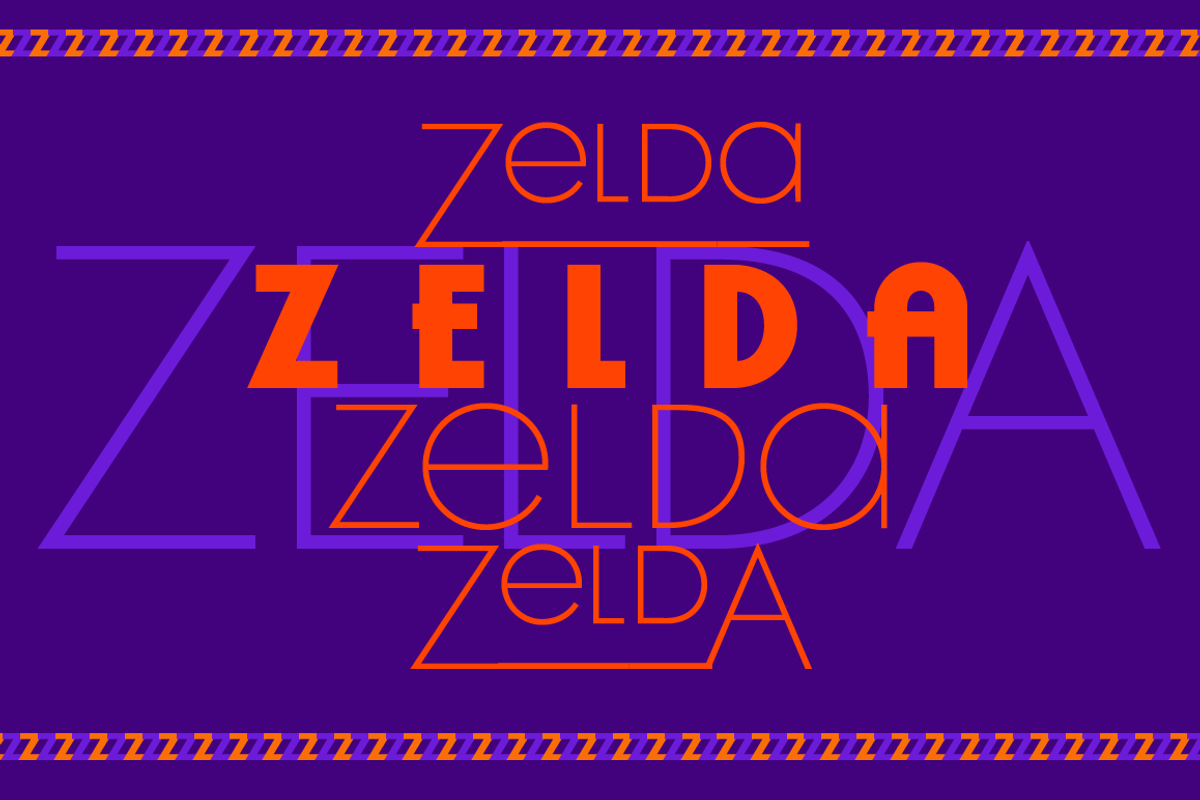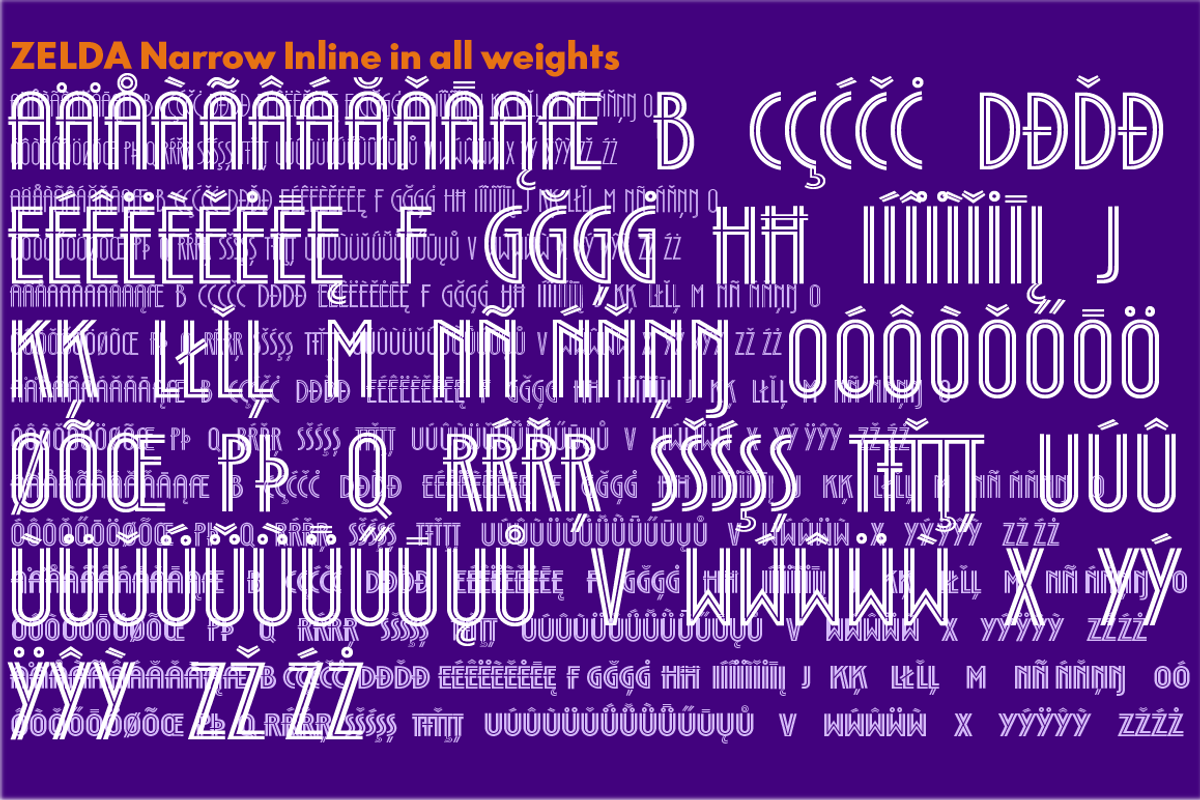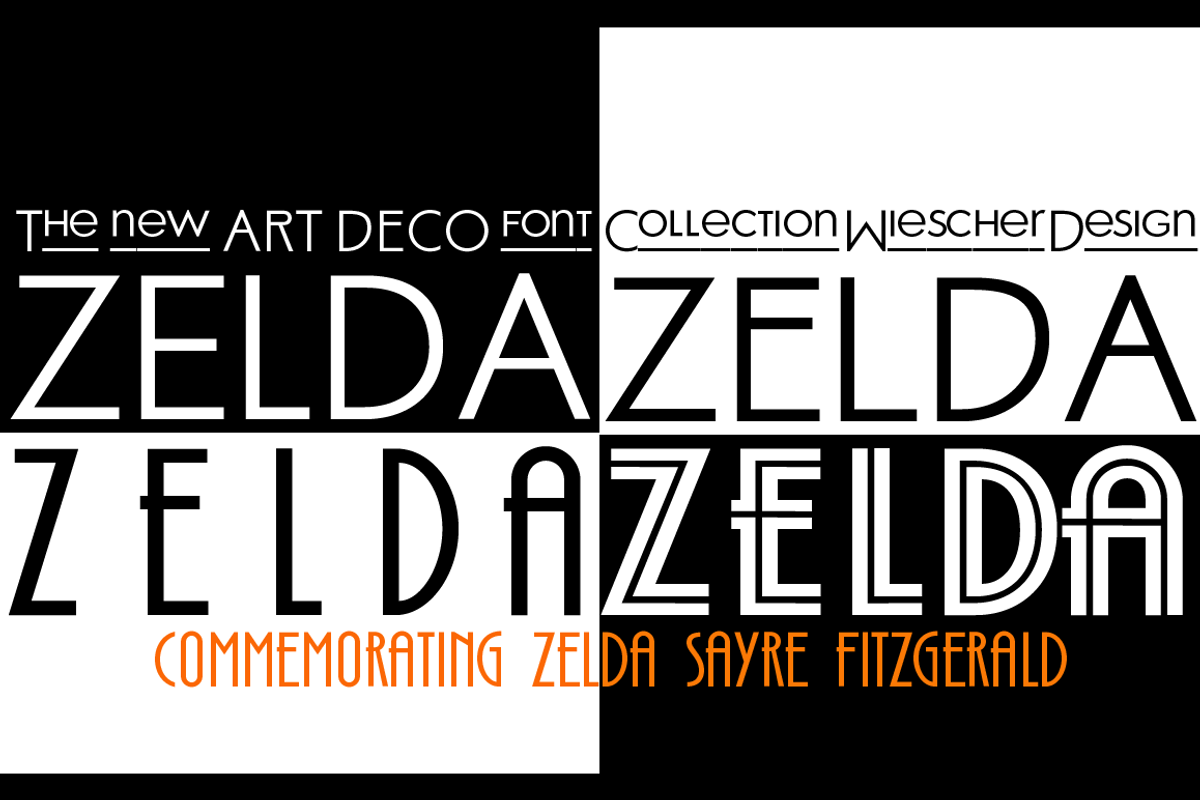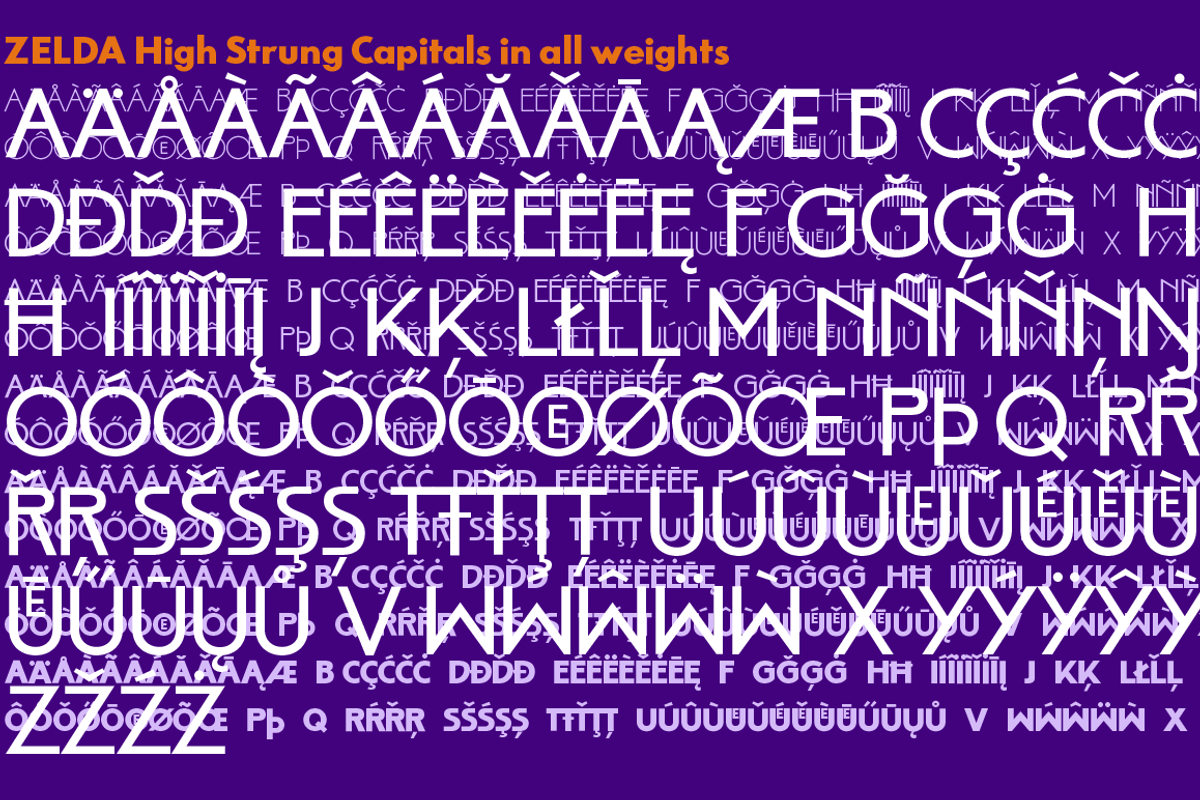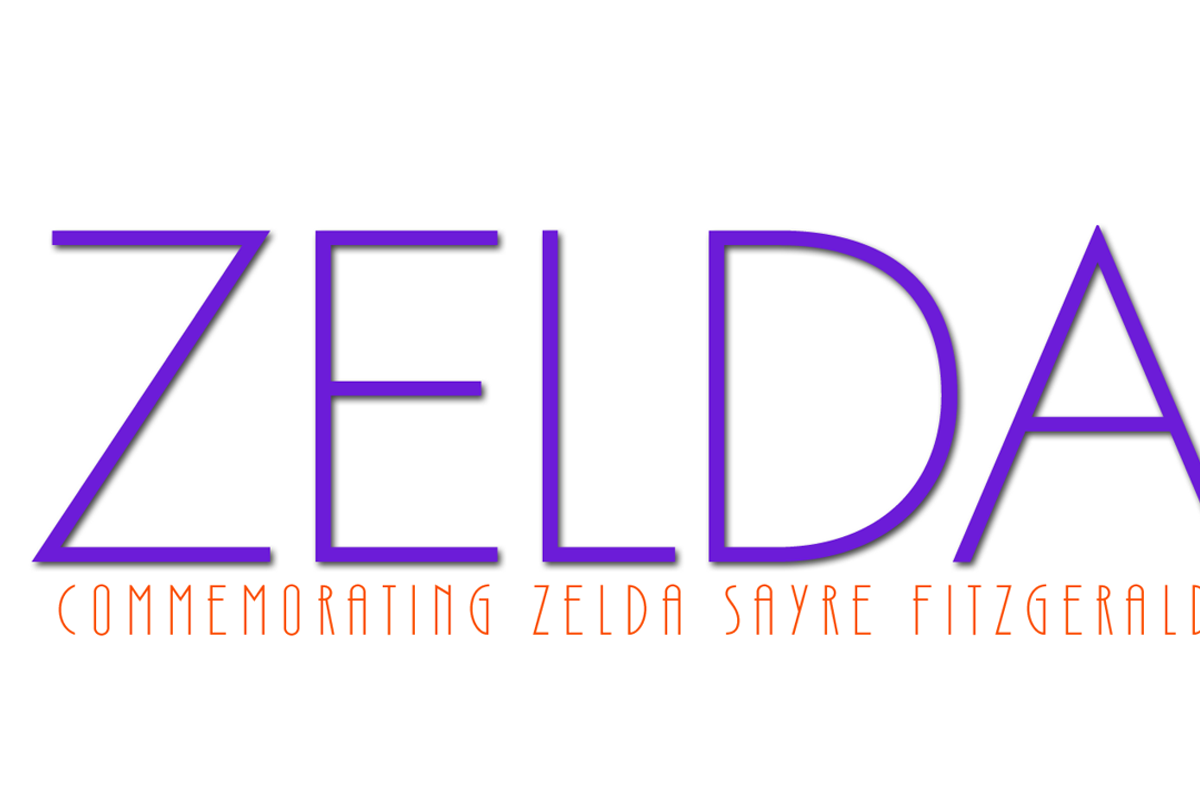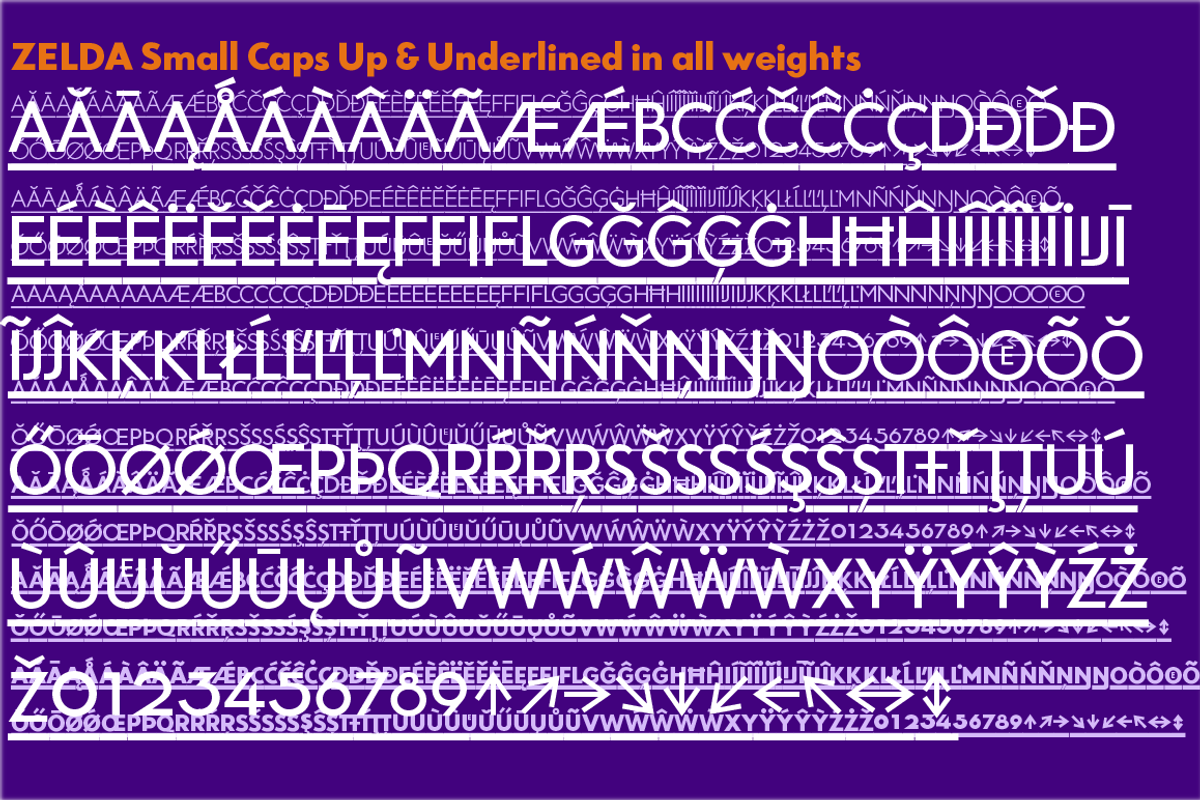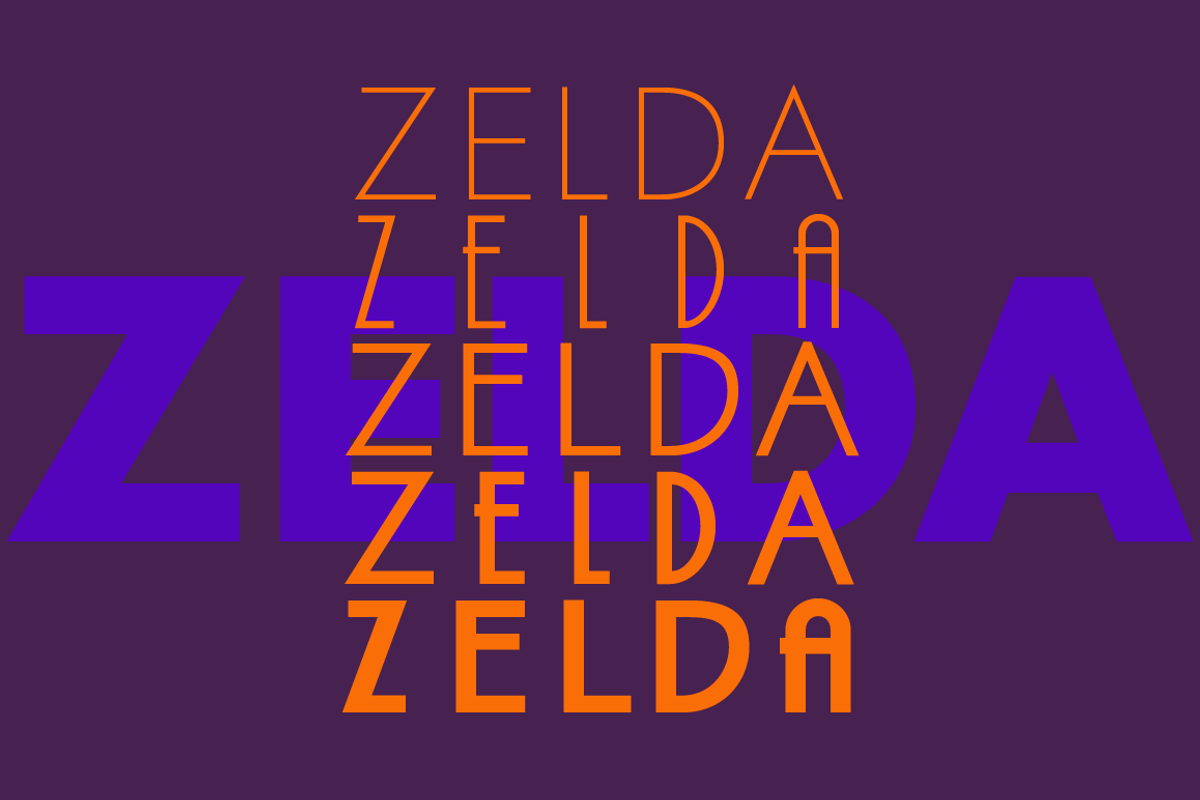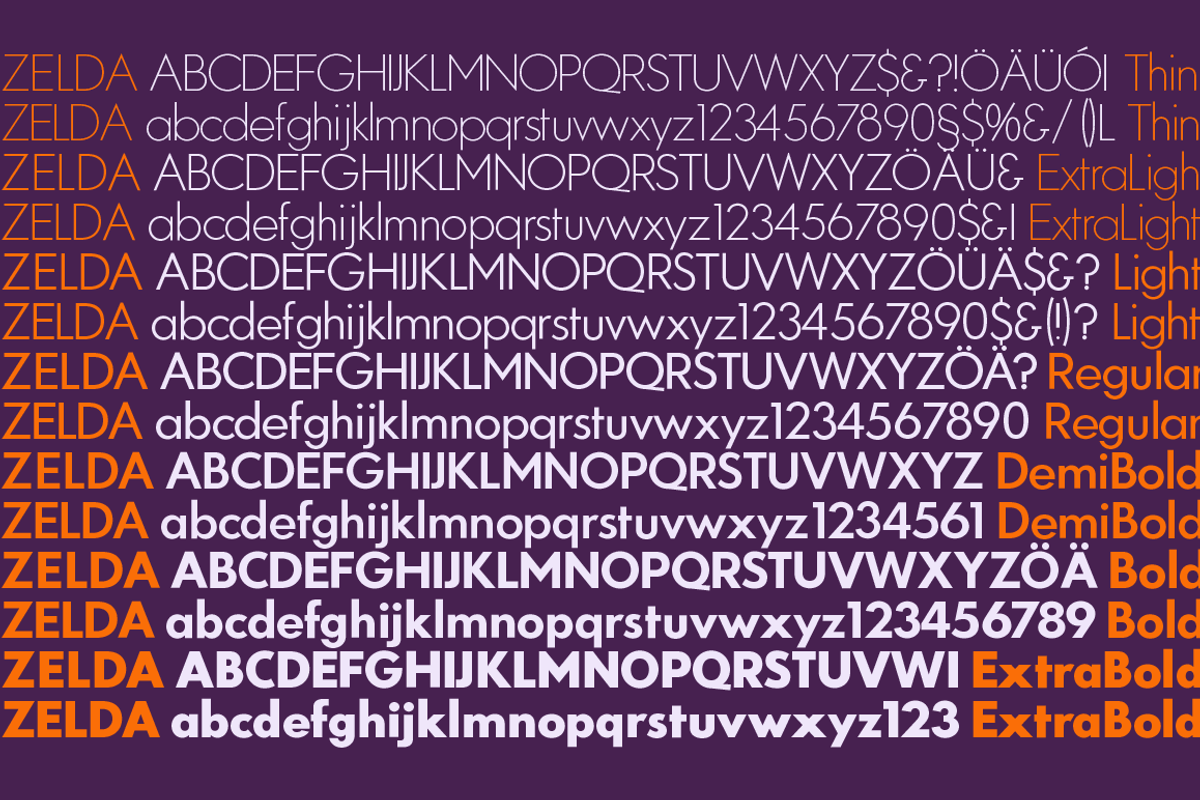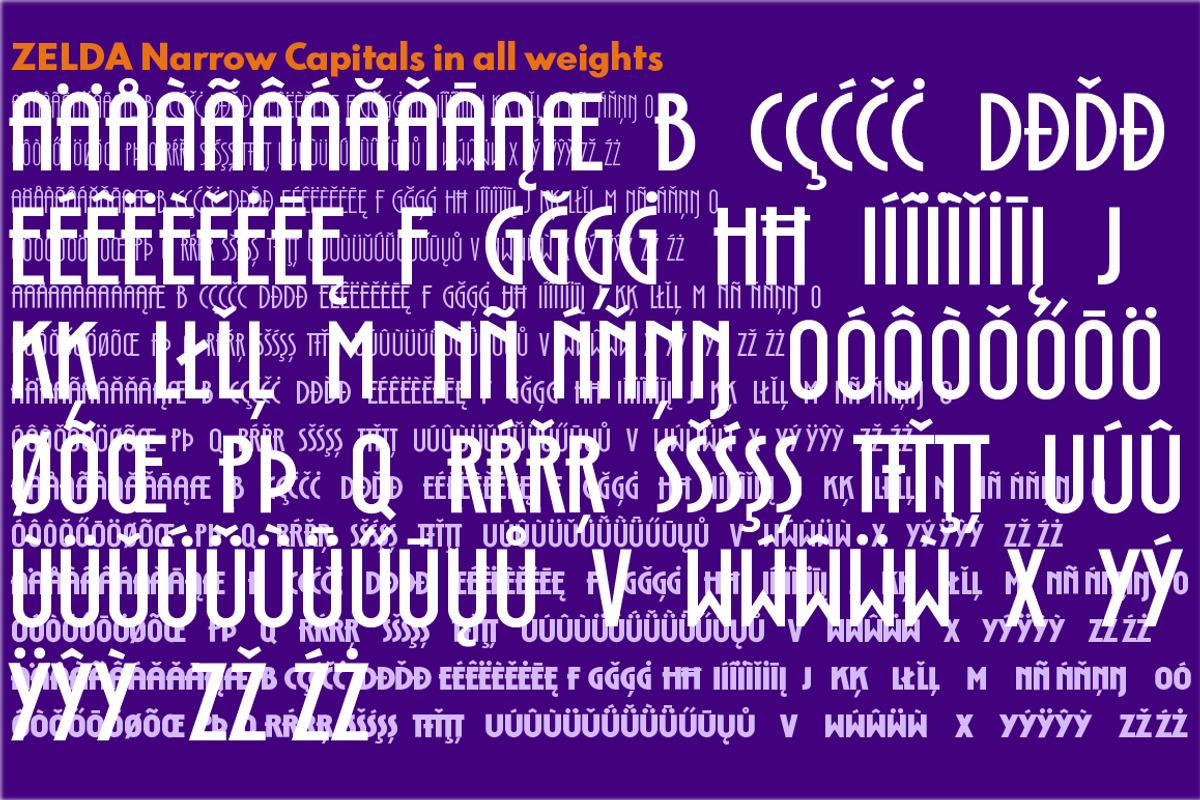
Zelda Collection
»ZELDA«, my new font family is named after Zelda Fitzgerald, the »Flapper« wife of »Tender is the Night« F. Scott Fitzgerald. They really lived it up at the French Riviera. Despite Scott making money in bundles, being the best paid writer of his time, they spent so much that they were always broke. But the really tragic thing is, Scott thought of himself as a failed writer, he never believed that he actually was »the writer« of his period. Their time was the »Avant Garde« time, that is the French military term for »advance guard«, the ones who were always ahead of everybody else. This period at the beginning of the twentieth century did prepare the way for our modern times. Women especially ignored all conventional behaviour, cut their hair and skirts short, started to study all kinds of subjects that were until then reserved for males only. Those were the first days of womens lib, we should thank the brave women of that time. In literature, design and all the other arts a new time dawned and typefaces started to loose their serifs. In commemoration of those days I designed this collection that goes together well, can and should be mixed to your hearts desire. I give you three complete sets of geometric capitals, normal, high strung (plus some extra low strung capitals) and another set of narrow capitals plus narrow capitals inline. One set of standard lowercase letters and one of normal small caps. Then there are elevated small caps and elevated lowercase letters. Over sixty uppercase ligatures and some basic words like »The, And, at« a.s.o. For good measure there are tabular numbers, old style numbers and the complete sets of nominators and denominators. Since not everyone owns opentype savy software I put the goodies in 6 single packets: Zelda-Normal, Zelda-CapLigatures, Zelda-HighStrung, Zelda-Narrow, Zelda-Narrow-Inline and Zelda-SmallCapsUp! You get 42 fonts for this introductory price. Enjoy!